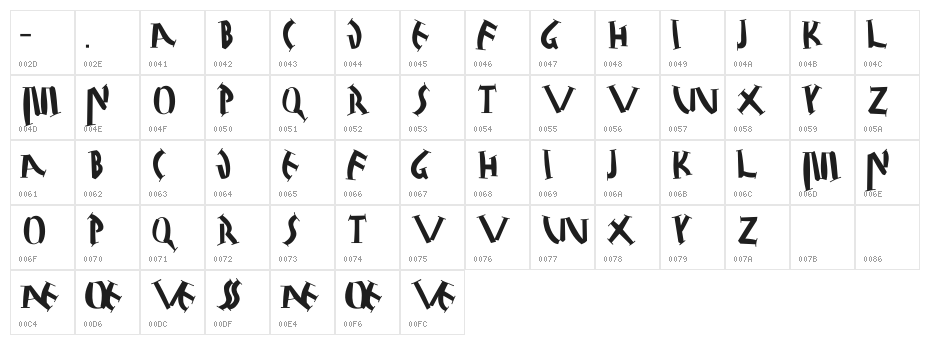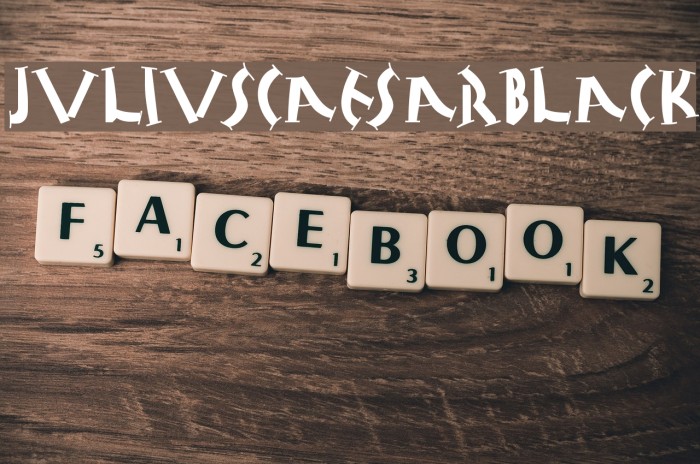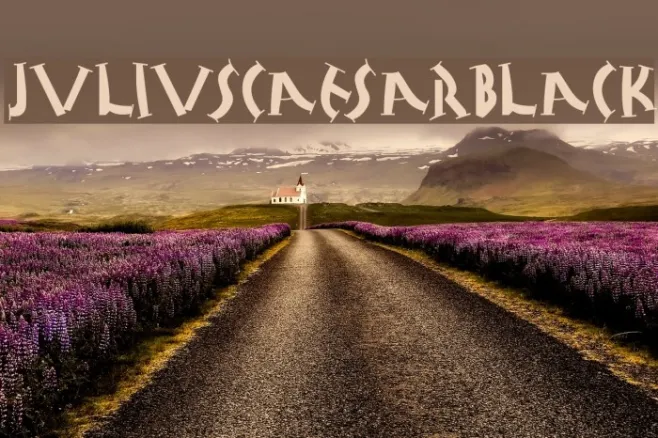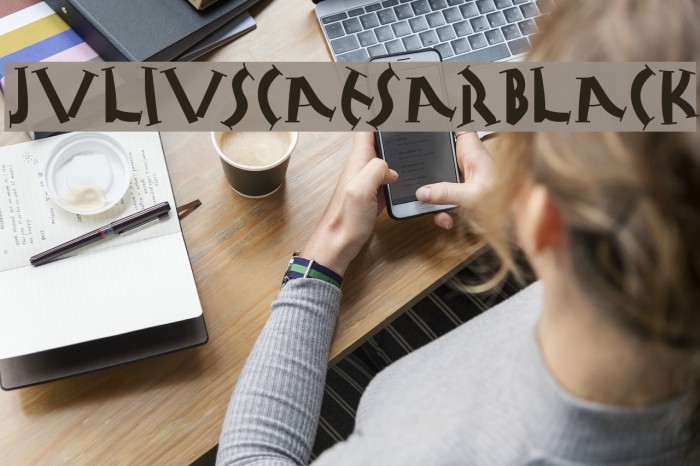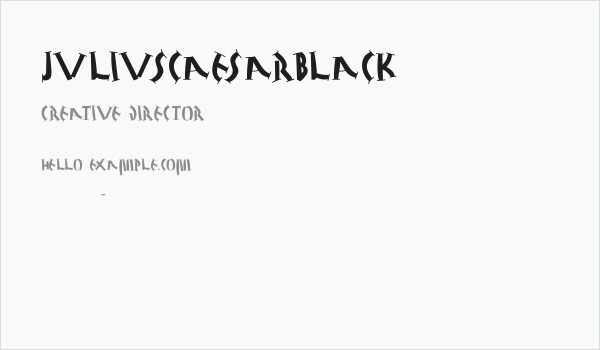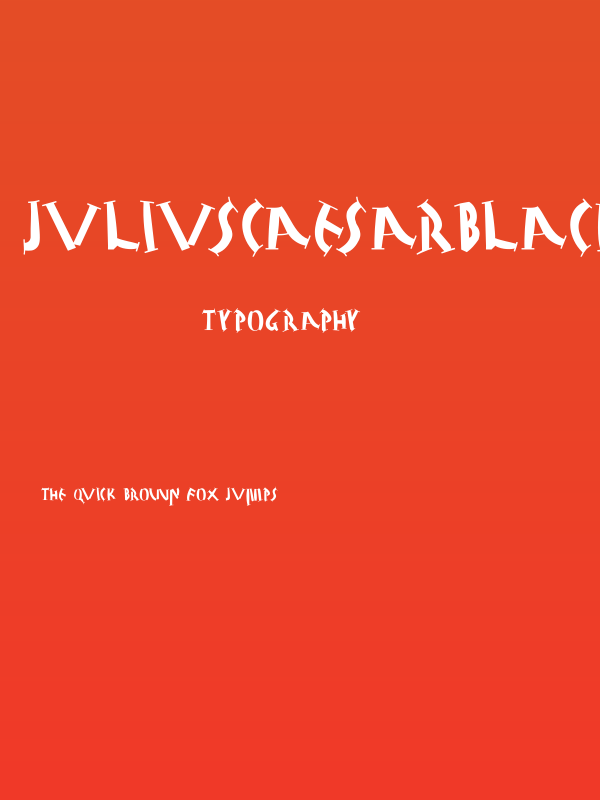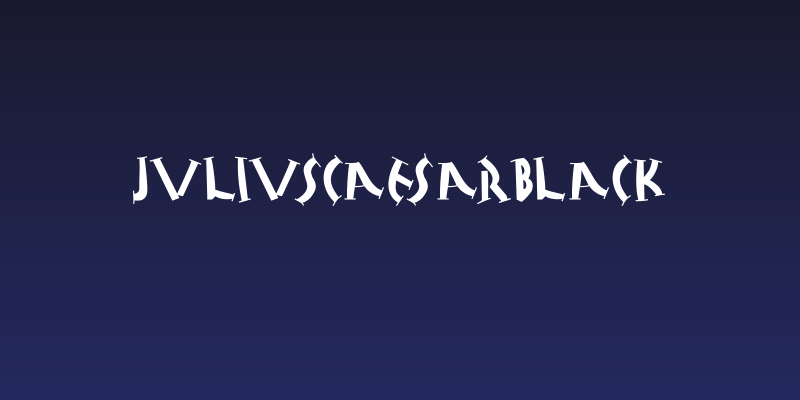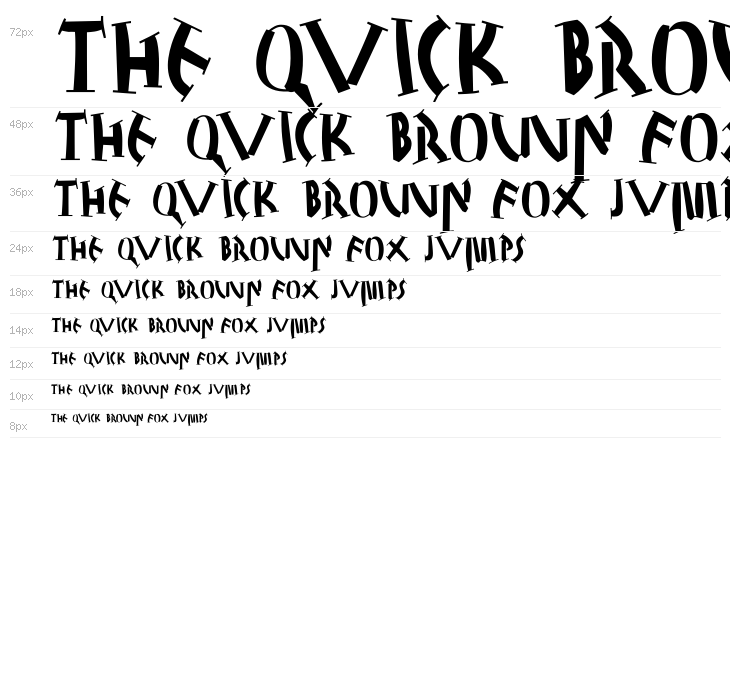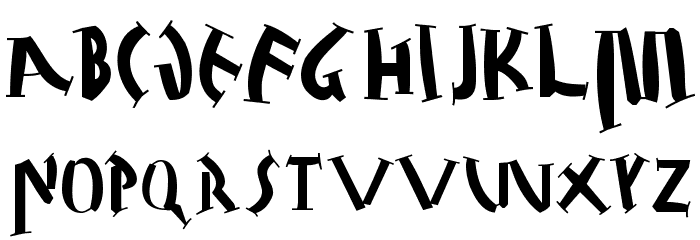
JuliusCaesarBlack Font
JuliusCaesarBlack Description
This font features a bold and striking design, reminiscent of ancient Roman inscriptions. The characters have a distinct angularity and sharpness, with pronounced serifs that give them a commanding presence. The uppercase letters are particularly bold, with a strong vertical emphasis and a slight slant that adds dynamism. The lowercase letters maintain the same angular style, ensuring consistency throughout. The overall appearance is both historical and dramatic, making it ideal for projects that require a sense of grandeur and authority.